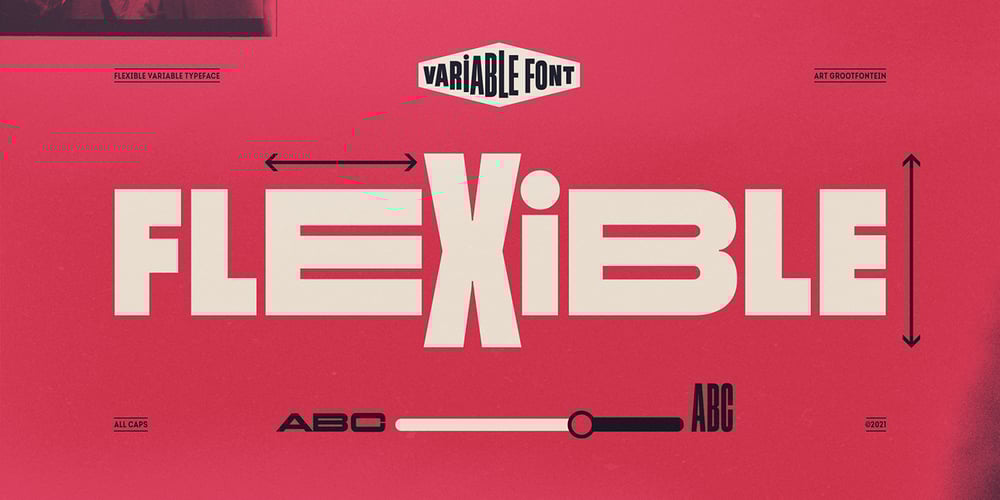
Flexible Font Family was designed by Art Grootfontein and published by Art Grootfontein. Flexible contains 18 styles and family package options. Inspired by late 19th century’s gothic typefaces from broadsides, Flexible uses the latest font technology to allow designers to play with each letter height and width easily.This versatile uppercase typeface is available in 8 widths and 8 heights, and as a variable font which gives you unlimited font possibilities!By using the variable version you only need to install one font file instead of the entire family and you take full advantage of the tremendous scope for design.Flexible was also developed with animation in mind to create amazing kinetic typography videos.Please have a look at this video to see animation examples.This family is a perfect choice for standout headlines, displays, packaging, flyers, logos, and works well in both print and digital environments like sophisticated web design or kinetic typography.The complete family pack includes the variable font.Language support :Afrikaans, Albanian, Azerbaijani, Basque, Bosnian, Catalan, Croatian, Czech, Danish, Dutch, English, Estonian, Faroese, Filipino, Finnish, French, Galician, German, Hungarian, Icelandic, Indonesian, Irish, Italian, Latvian, Lithuanian, Malay, Norwegian Bokmål, Polish, Portuguese, Romanian, Slovak, Slovenian, Spanish, Swahili, Swedish, Turkish, Welsh, Zulu